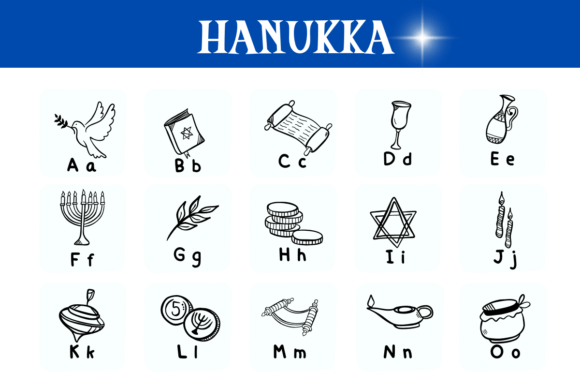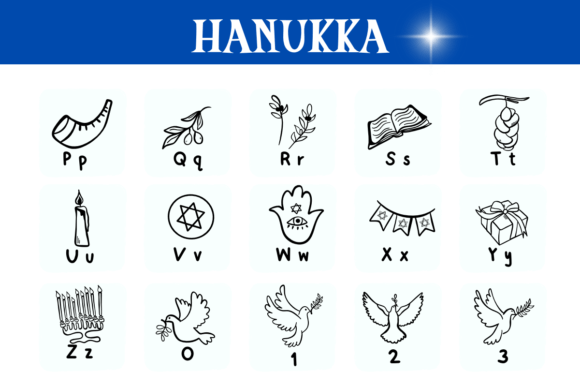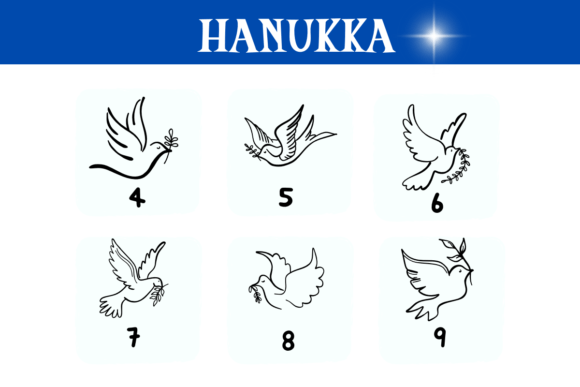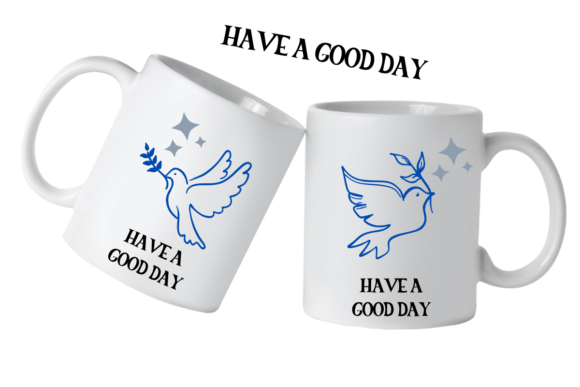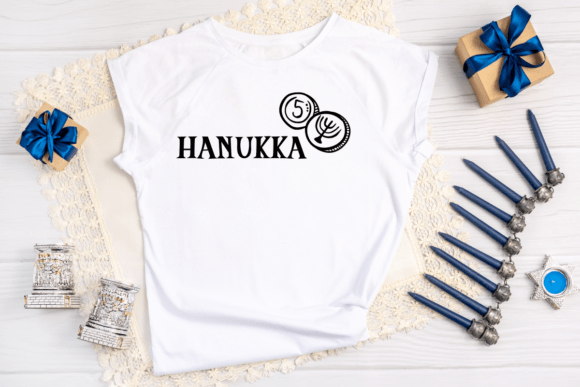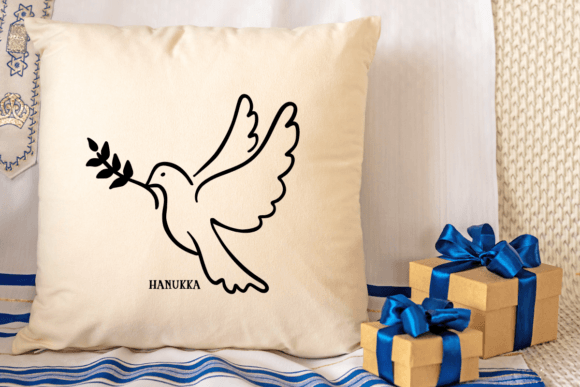
Introducing Hanukkah Font: Add a Festive Touch to Your Creative Projects
Are you looking for a unique and festive font to add a special touch to your creative projects? Look no further than the Hanukkah Font, a delightful dingbats font that is perfect for designers, crafters, and anyone looking to add a little joy and festivity to their work. In this article, we’ll explore the features and benefits of the Hanukkah Font, and show you how it can enhance your creative projects, from wedding invitations to DIY crafts and decorations.
What is Hanukkah Font?
Hanukkah Font is a dingbats font that features a range of festive symbols and icons, including menorahs, dreidels, Stars of David, and other Jewish-themed characters. This font is specifically designed to add a touch of festivity and joy to your creative projects, making it perfect for Hanukkah-themed designs, Jewish celebrations, and any other project that requires a special touch.
Features of Hanukkah Font
The Hanukkah Font is a versatile and easy-to-use font that offers a range of features and benefits, including:
- Festive symbols and icons: The Hanukkah Font features a range of festive symbols and icons, including menorahs, dreidels, Stars of David, and other Jewish-themed characters.
- Easily scalable: The Hanukkah Font is a vector font that can be easily scaled up or down without losing any quality, making it perfect for a range of applications, from small crafts to large-scale designs.
Creative Projects with Hanukkah Font
The Hanukkah Font is a versatile font that can be used in a range of creative projects, including:
- Wedding invitations: Add a touch of festivity and joy to your wedding invitations with the Hanukkah Font. Perfect for Jewish weddings or for couples who want to add a special touch to their invitations.
- DIY crafts: The Hanukkah Font is perfect for DIY crafts, such as making Hanukkah cards, gift tags, and decorations.
- Decorations: Use the Hanukkah Font to create festive decorations, such as banners, garlands, and signs.
- Logos and branding: The Hanukkah Font can be used to create unique and festive logos and branding materials, perfect for Jewish businesses or organizations.
Tips and Inspiration for Using Hanukkah Font
Here are a few tips and inspiration for using the Hanukkah Font in your creative projects:
- Combine with other fonts: Combine the Hanukkah Font with other fonts to create a unique and eye-catching design.
- Experiment with colors: Experiment with different colors and textures to add depth and interest to your design.
- Use in combination with images: Use the Hanukkah Font in combination with images, such as photos or illustrations, to create a visually appealing design.
The Hanukkah Font is a unique and festive font that is perfect for designers, crafters, and anyone looking to add a special touch to their creative projects. With its range of festive symbols and icons, ease of use, and versatility, the Hanukkah Font is a must-have for anyone looking to create Hanukkah-themed designs or add a touch of joy and festivity to their work. So why wait? Download the Hanukkah Font today and start creating!